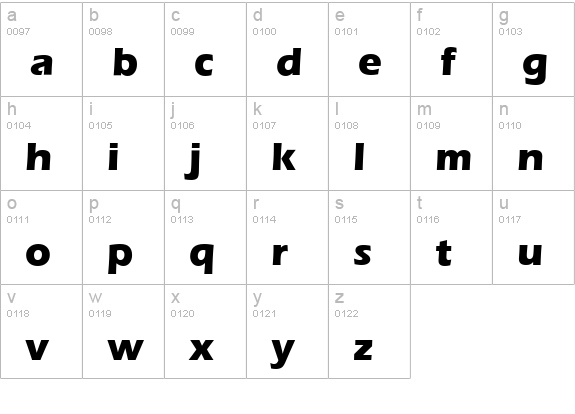
Ennis-Bold is a strong, high-contrast variant in the Ennis typeface family \xE2\x80\x94 well suited to headlines, attention-grabbing titles, and strong calls-to-action.
Ennis-Bold font is a captivating and modern typeface designed to make a bold statement in your projects. With its strong and distinctive appearance, Ennis-Bold font exudes confidence and professionalism, making it perfect for headlines, titles, and branding materials. The thick, bold lines of this font command attention and deliver a powerful visual impact. What sets Ennis-Bold font apart is not only its striking design but also the fact that it is available for free download at FontsMarket.com. This means you can easily access and use this impressive font in your designs without any cost, making it a valuable addition to your font collection. Whether you're working on posters, logos, or web design projects, Ennis-Bold font is sure to add a touch of sophistication and style. Don't miss out on the opportunity to enhance your designs with the striking Ennis-Bold font, now freely available for download at FontsMarket.com. Elevate your projects with this eye-catching and versatile typeface that is bound to leave a lasting impression on your audience.